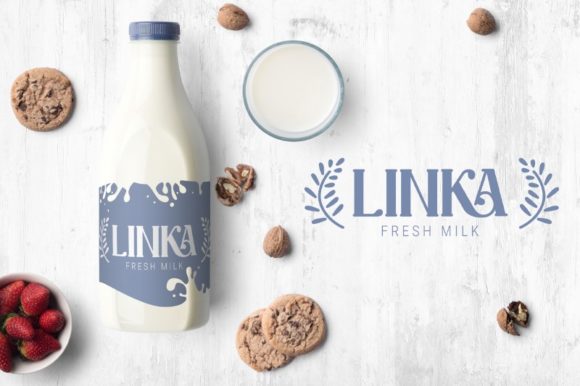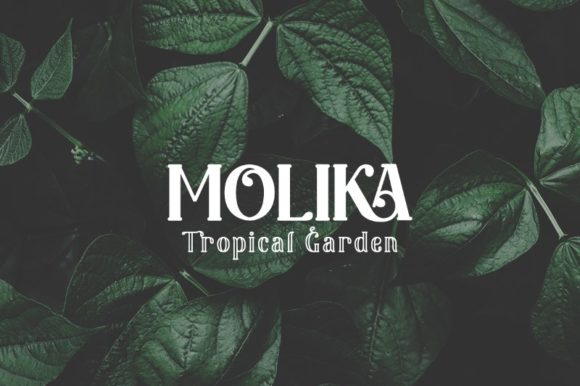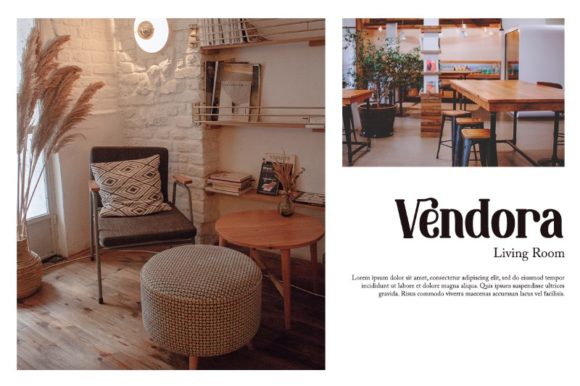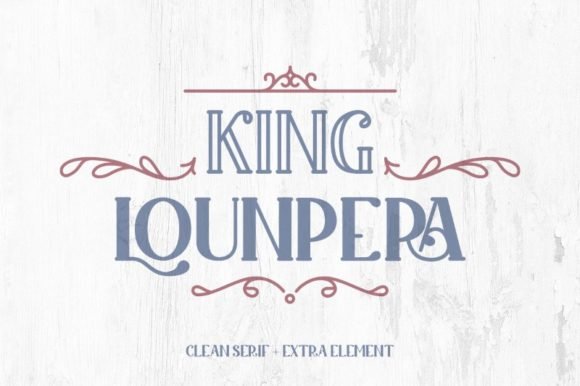
Introduction to King Lounpera Font
King Lounpera is a stunning display font that features sweet swashes and stunning alternates.
It will turn any design venture into a truly inspiring activity .
Key Features of King Lounpera Font
Why Choose King Lounpera Font?
King Lounpera Font offers exceptional quality and versatility, making it a valuable addition to your design toolkit. Whether you’re creating for personal projects or commercial use, King Lounpera Font delivers professional results.